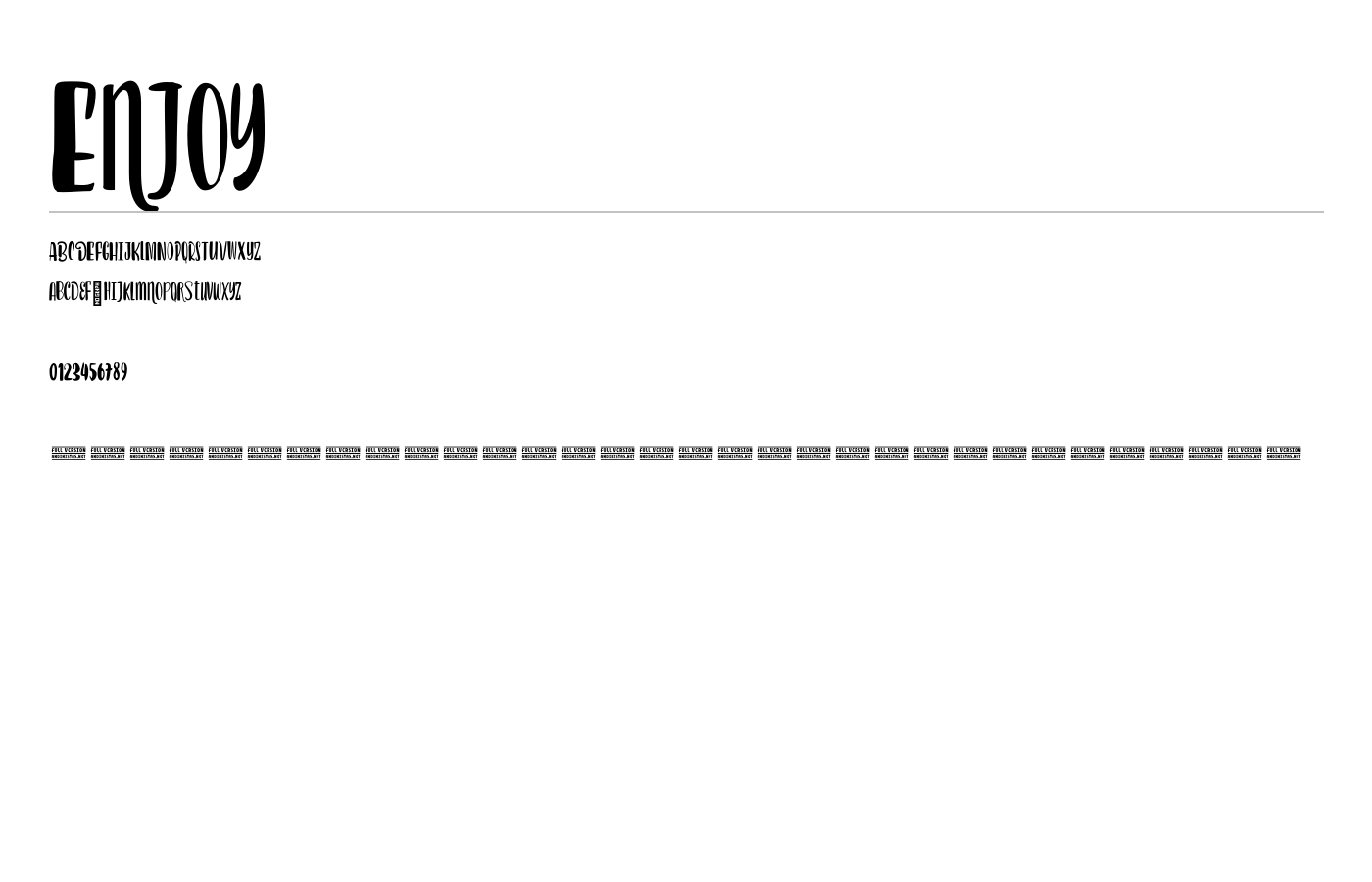
Enjoy Font is a tall, narrow sans serif typeface with a playful and quirky character. Its condensed letterforms and subtle stroke variation give it a distinctive, lively feel, making it ideal for creative headlines, posters, and branding that aims to stand out with a fun yet stylish vibe. This font works well where space is limited but a strong personality is desired.
Enjoy Font
About Enjoy Font